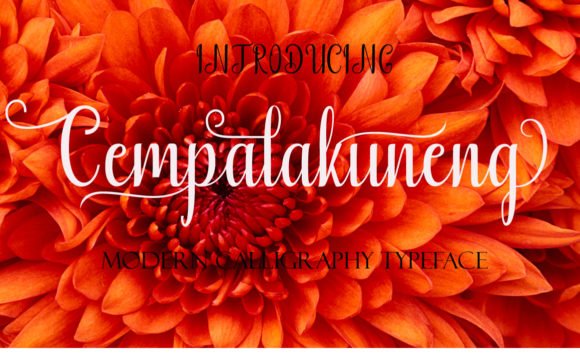
Unleash Your Creativity with the Cempalakuneng Font
Have you ever stared at a blank page, waiting for inspiration to strike? That’s exactly what happened to me the last time I was working on a design project. I was searching for the perfect font to give it that extra oomph, and then it hit me – the Cempalakuneng Font. This modern calligraphy font is a game-changer, and I’m excited to share its story with you.
The Cempalakuneng Font is designed to make your designs stand out from the crowd. With its striking feel and elegant lines, it’s perfect for any project that needs a touch of sophistication. Whether you’re a seasoned designer or just starting out, this font is a valuable addition to your toolkit. Its versatility and unique style make it a must-have for anyone looking to take their designs to the next level.
Cempalakuneng Font Key Features
- Font Family: Cempalakuneng, a unique and elegant script font designed to add a touch of sophistication to any design.
- Character Set: Includes a wide range of characters, including uppercase and lowercase letters, numerals, punctuation marks, and special characters.
- Unique Characteristics: Features a distinctive, flowing script style with subtle flair and elegance, making it ideal for use in creative, high-end designs.
Cempalakuneng Font Review
I recently had the chance to work with the Cempalakuneng font, and I must say it’s been a mixed bag. Let’s dive into the good and the bad.
- The unique, hand-drawn aesthetic is definitely a standout. It adds a touch of personality to any design project.
- The font’s bold and italic weights are well-executed, providing a nice contrast to the regular weight.
- It’s suitable for a variety of design projects, from branding to editorial content.
- The font’s legibility suffers at smaller font sizes, making it less ideal for body text.
- The font family is relatively small, with only a few weights and styles available.
- Some characters may not be fully supported, which could cause issues in certain design applications.
Overall, I’d give the Cempalakuneng font a solid 3 out of 5 stars. While it’s not perfect, it’s a great choice for projects where a unique, hand-drawn aesthetic is desired. Just be aware of its limitations and use it judiciously.
Getting the Most Out of Cempalakuneng Font
To get the most out of Cempalakuneng Font, consider the following tips:
- Use the font in conjunction with other decorative fonts for a unique look.
- Use the font in headings and titles for a bold and eye-catching effect.
Cempalakuneng Font is commonly used in:
- Branding and logos.
- Advertising and marketing materials.
- Editorial and publishing projects.
Alternatives to Cempalakuneng Font for Designers
1. Nunito Font
Nunito Font is a sans-serif typeface designed by Vernon Adams. It is suitable for use in body text, headings, and titles. Nunito Font is a modern, clean, and elegant alternative to Cempalakuneng Font. It has a similar minimalist feel but with more rounded edges, making it a great option for digital products and websites.
Lato Font is a sans-serif typeface designed by Łukasz Dziedzic. It is a great option for body text and headings. Lato Font is a more geometric and modern alternative to Cempalakuneng Font, with a stronger emphasis on legibility. It is suitable for use in digital products, websites, and print materials.
3. Merriweather Font
Merriweather Font is a serif typeface designed by Eben Sorkin. It is a great option for body text and headings in print materials. Merriweather Font is a more traditional and elegant alternative to Cempalakuneng Font, with a strong emphasis on readability. It is suitable for use in books, magazines, and other print materials.